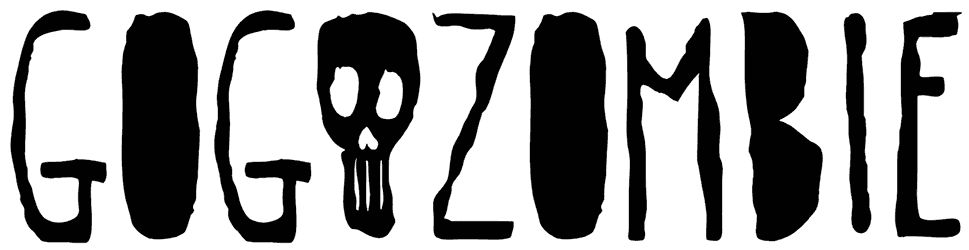
Gogozombie Font
Gogozombie, with a fantasy style and monstrous lettering, can create a dark and hidden, creepy world in your writing. Although the appearance of this horror font may not make your hair raise, it still looks great for designing Halloween posters and detective book titles.
Evoking the stress of a pirate attack, this zombie font works very well for designers who like a spooky yet fun atmosphere and do not need lowercase letters.